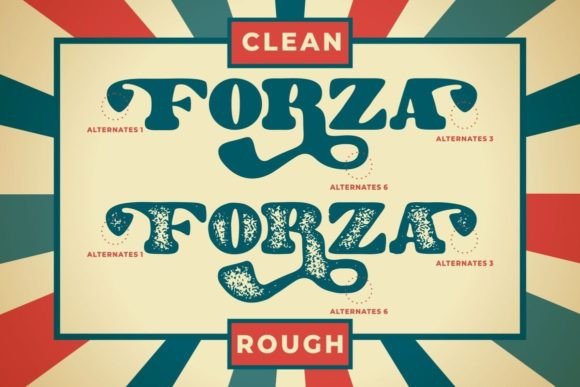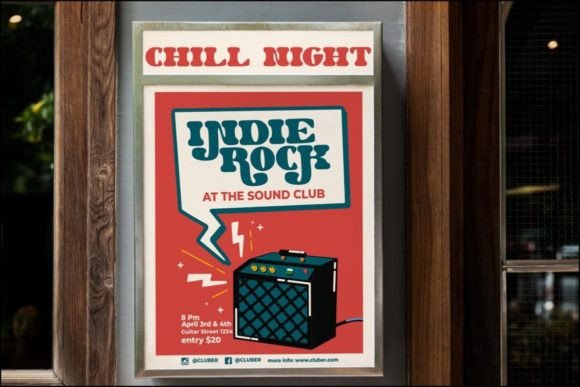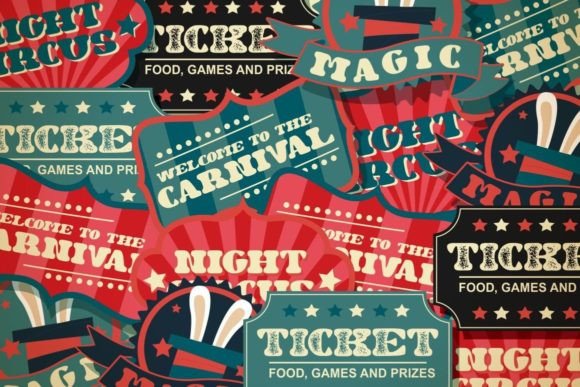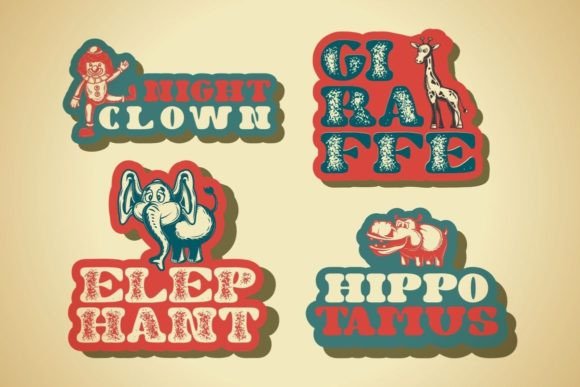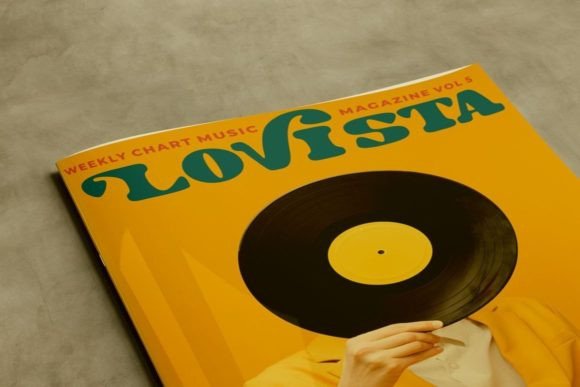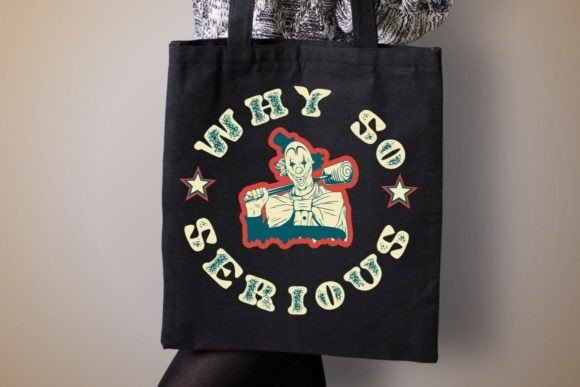
Introducing Antia Notario Font: A Modern Vintage Serif Masterpiece
Are you a designer or crafter looking for a unique and versatile font to elevate your creative projects? Look no further than Antia Notario Font, a modern vintage serif font that embodies the perfect blend of boldness, grooviness, and cleanliness. With its beautiful ligatures and tons of alternative glyphs, this font is sure to make your designs stand out from the crowd.
What Makes Antia Notario Font So Special?
Antia Notario Font is a true gem in the world of typography. Its vintage feel is reminiscent of the 1960s and 1970s, making it an ideal choice for themed projects that require a touch of nostalgia. The font’s bold and clean lines ensure that it remains legible even at large and small sizes, making it incredibly versatile.
Antia Notario Font is perfect for a wide range of design projects, including:
• Headlines: Make a statement with bold and eye-catching headlines that demand attention.
• Covers: Create stunning book covers, magazine covers, or album covers that showcase your creativity.
• Posters: Design vibrant and engaging posters that grab the audience’s attention.
• Logos: Craft unique and memorable logos that represent your brand’s personality.
• Quotes: Add a touch of elegance to your quotes and sayings.
• Product Packaging: Elevate your product packaging with a font that exudes style and sophistication.
• Merchandise: Create eye-catching merchandise, such as t-shirts, mugs, and more.
• Social Media: Enhance your social media presence with engaging graphics and posts.
• Greeting Cards: Design beautiful and heartfelt greeting cards for special occasions.
Beautiful Ligatures and Alternative Glyphs
Antia Notario Font boasts an impressive array of beautiful ligatures and alternative glyphs. These intricate details add a level of sophistication and elegance to your designs, setting them apart from the ordinary. With tons of options to choose from, you can experiment with different combinations to find the perfect look for your project.
Why Choose Antia Notario Font?
So, why should you choose Antia Notario Font for your next design project? Here are just a few compelling reasons:
• Unique and Versatile: Antia Notario Font is a true standout in the world of typography. Its versatility ensures that it can be used in a wide range of design projects.
• Vintage Feel: The font’s vintage feel adds a touch of nostalgia to your designs, making them perfect for themed projects.
• High-Quality Design: Antia Notario Font is designed with precision and attention to detail, ensuring a high-quality finish.
In conclusion, Antia Notario Font is a modern vintage serif font that is sure to elevate your design projects to new heights. With its beautiful ligatures, tons of alternative glyphs, and PUA encoding, this font offers unparalleled creative freedom. Whether you’re a designer, crafter, or DIY enthusiast, Antia Notario Font is an excellent choice for anyone looking to add a touch of style and sophistication to their work. So why wait? Get creative with Antia Notario Font today and discover a world of limitless design possibilities!